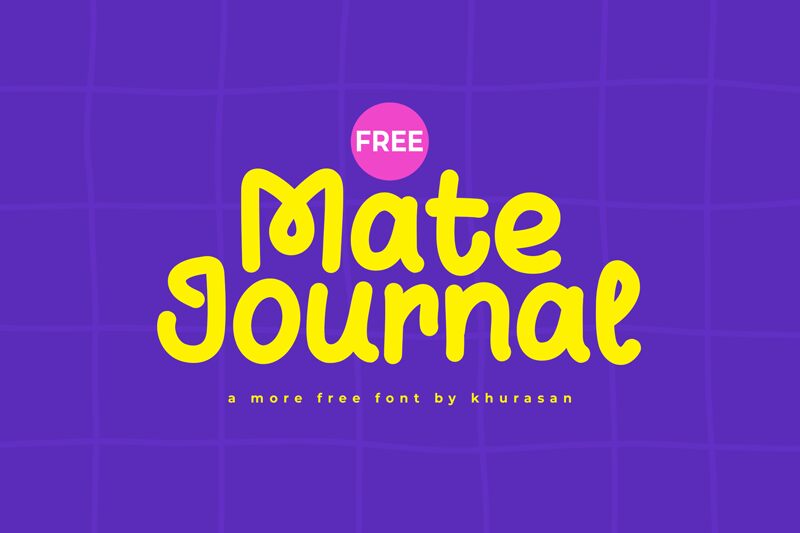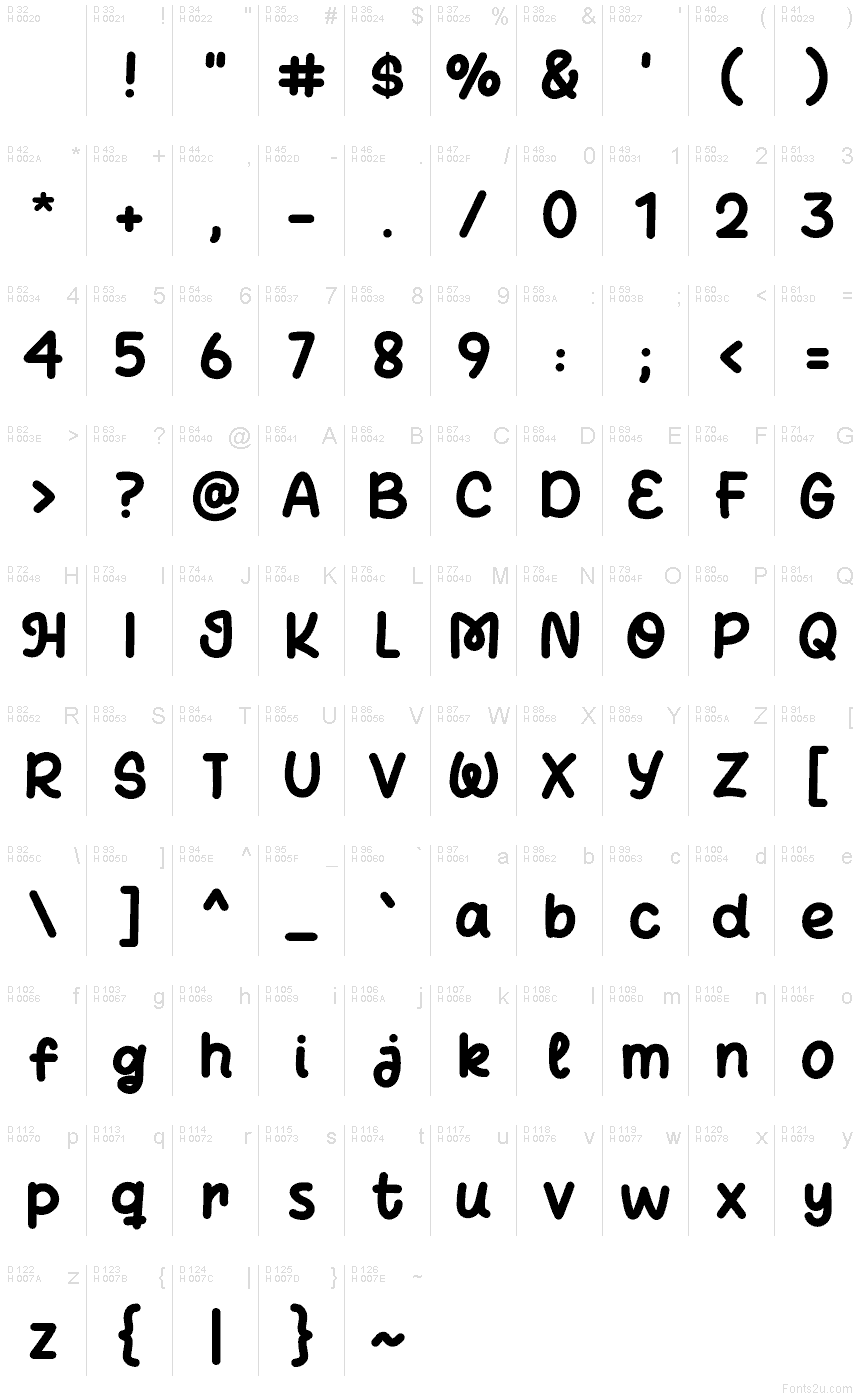
Mate Journal
Mate Journal font is a free display cartoon typeface designed by Khurasan to bring a lighthearted and refreshing touch to your projects. The letters have curved forms for creating a relaxed mood and friendly appearance with its casual style. With its modern and clean shapes, this font is wonderfully suitable for different contemporary visual branding purposes.
Mate Journal is your ideal typeface option for logos, product packaging, book cover designs, posters, banners, flyers, postcards/notes design as well as apparel prints and product labels. Editorial elements such as article headers are also excellent placement ideas of this great font in use.